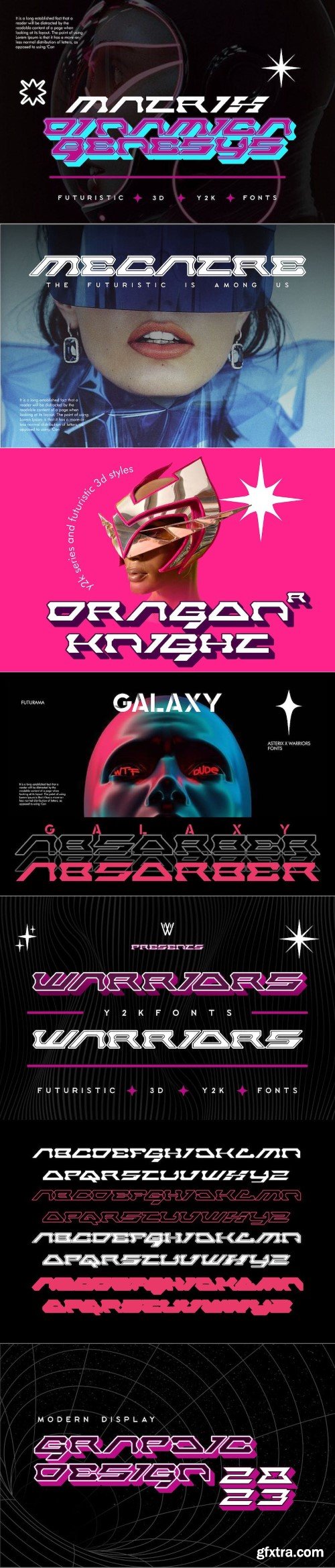
未来主义Y2K字体
Y2k Font With 3D model. do you have it?
The development of the Y2k font into a 3D shadow model was born out of inspiration when your demand for it increased but the supply provided could not guarantee the options of customers like you.
With a futuristic and cyberpunk-style impression. making it very suitable for poster designs that tend to use the Y2K Style. Y2k design is a style that is being used by poster designers to make their designs look retro but not outdated. the issue is that this design will become a trend in 2023.
The move from minimalist design style to retro and futuristic style makes this font style very popular with many people. Free style but organized, has a hard and bold impression. makes me name it ""Warriors font"".